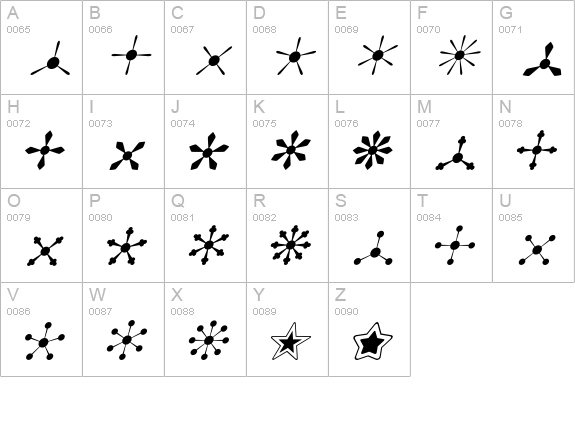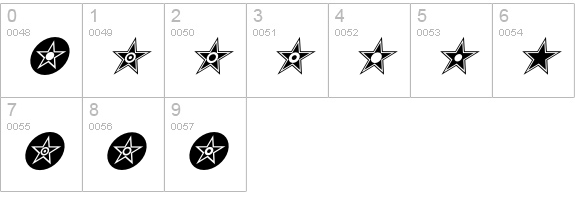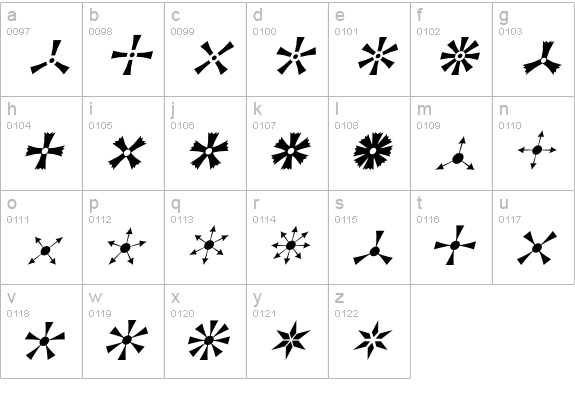
AltemusStarsTwoItalic Font Details
AltemusStarsTwoItalic font is a stunning and elegant typeface that exudes a sense of sophistication and charm. Its italicized design adds a touch of flair and uniqueness to any project it is used in. The graceful curves and intricate details of this font make it perfect for adding a touch of class to invitations, branding, and other design projects. And the best part? AltemusStarsTwoItalic font is available for free download at FontsMarket.com. Now you can elevate your designs with this exquisite font without breaking the bank. Don't miss out on the opportunity to enhance your projects with the beauty and elegance of AltemusStarsTwoItalic font – download it for free today!